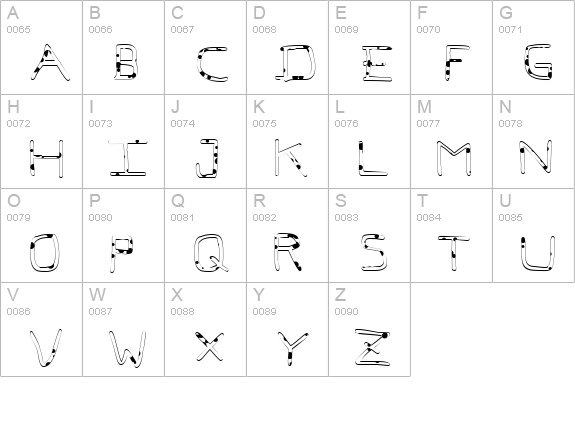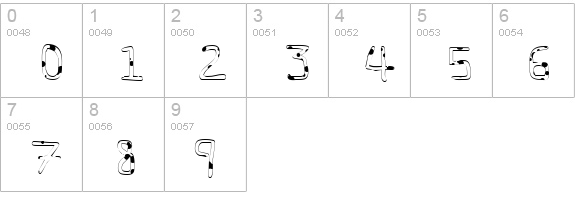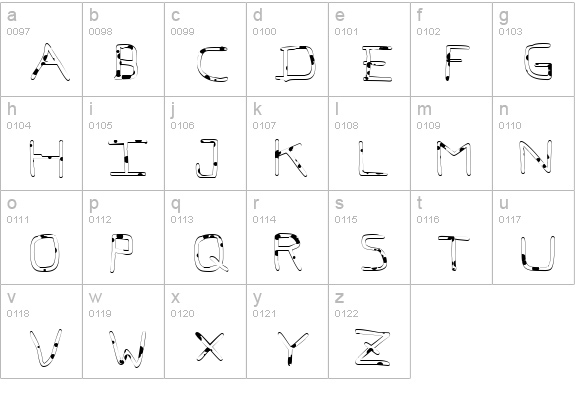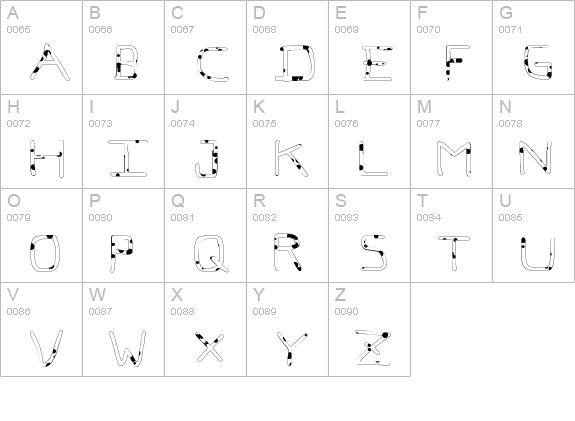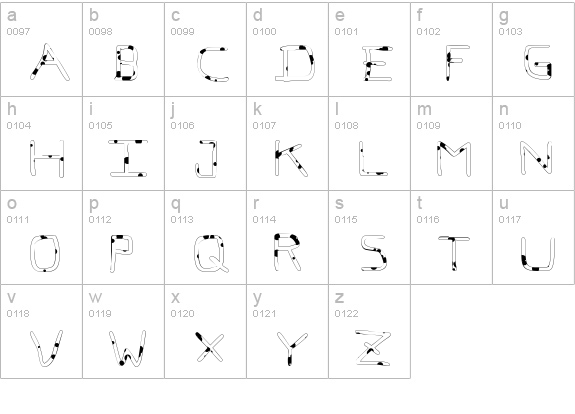
Pf_veryverybadfont7-Liquid Font Details
Introducing Pf_veryverybadfont7-Liquid font, a truly unique and captivating typeface that will add a touch of creativity to any design project. This font breaks free from the conventional norms of typography, offering a refreshing and innovative approach to letterforms. With its fluid and dynamic design, Pf_veryverybadfont7-Liquid font creates a mesmerizing visual experience. Each character seems to effortlessly flow into the next, creating a harmonious and seamless composition. This font is an excellent choice for those looking to make a bold statement and push the boundaries of design. Not only does Pf_veryverybadfont7-Liquid font captivate with its striking aesthetics, but it also offers practicality and versatility. Whether you're designing a logo, poster, or website, this font will effortlessly adapt to any creative vision. Its legibility remains intact, ensuring that your message is effectively conveyed to your audience. The best part? Pf_veryverybadfont7-Liquid font is available for free download at FontsMarket.com. Yes, you read that right - this incredible font is freely accessible, allowing designers of all levels to unleash their creativity without any financial constraints. FontsMarket.com provides a platform where aspiring designers, professionals, and enthusiasts can discover and explore a vast collection of high-quality fonts, including Pf_veryverybadfont7-Liquid font. So, why wait? Don't miss out on the opportunity to elevate your design projects with Pf_veryverybadfont7-Liquid font. Download it for free at FontsMarket.com and let your imagination run wild. Unleash the power of typography and create stunning visuals that will leave a lasting impression.